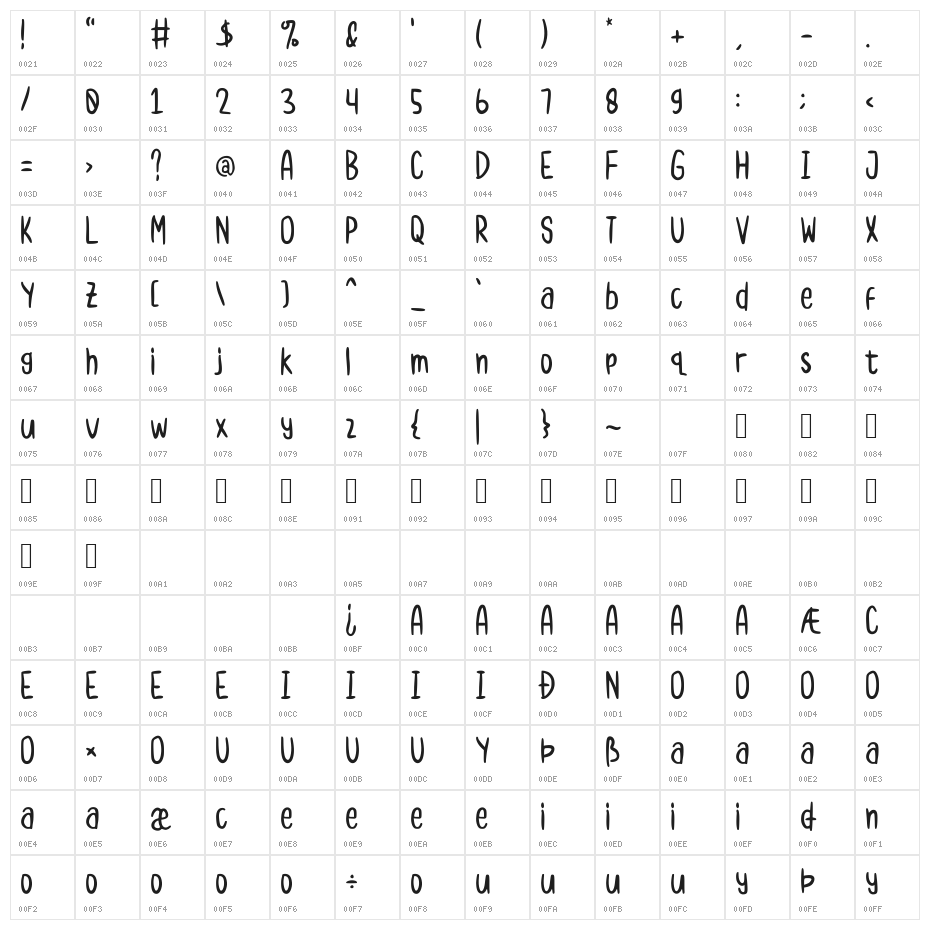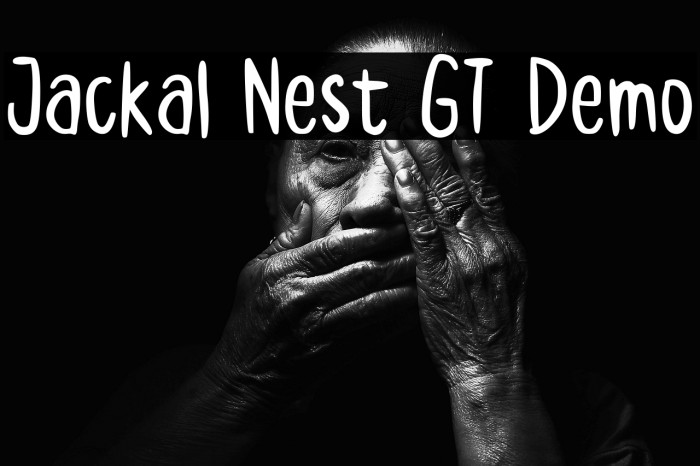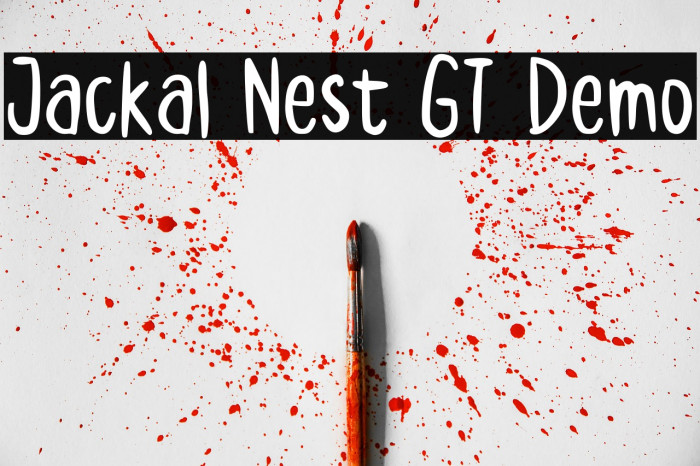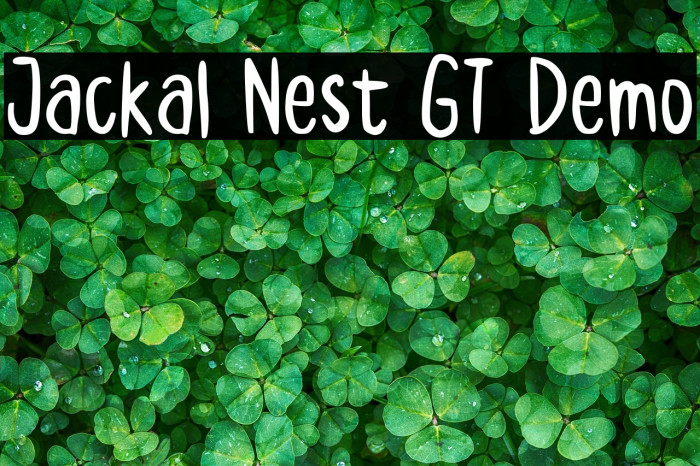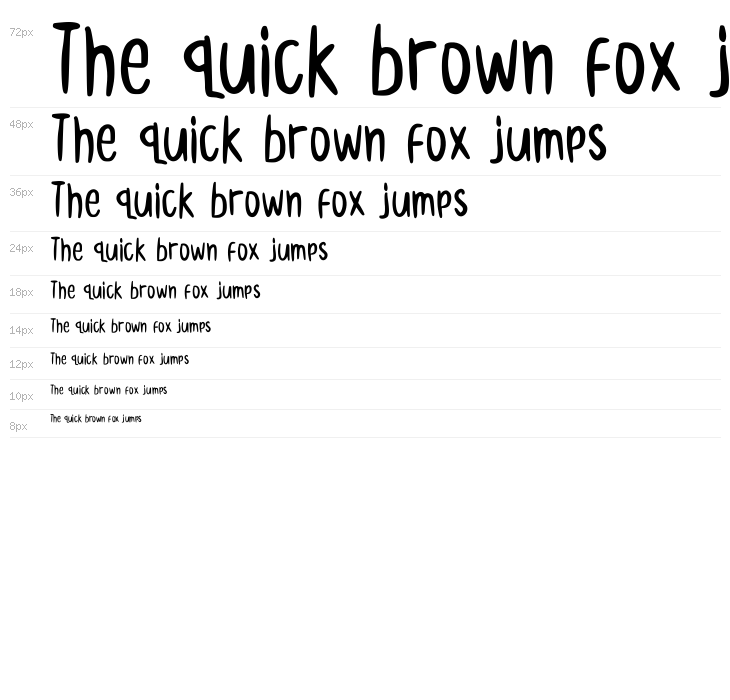
Jackal Nest GT Demo Font
Jackal Nest GT Demo Description
This playful and energetic font features a handwritten style with a casual, informal appearance. The letters are slightly irregular, giving it a unique and personal touch. The strokes are consistent in thickness, providing a harmonious look across all characters. The font includes both uppercase and lowercase letters, numbers, and a variety of special characters, making it versatile for different uses. Its friendly and approachable design makes it ideal for projects that require a personal or creative touch.